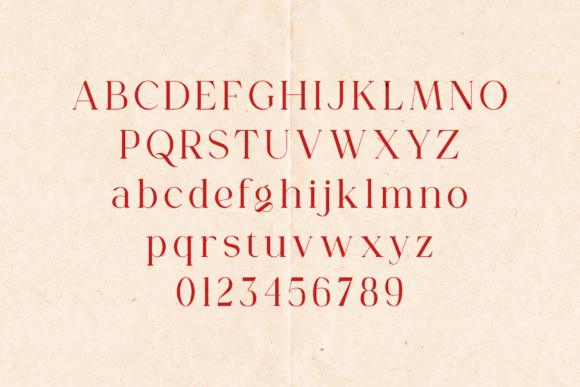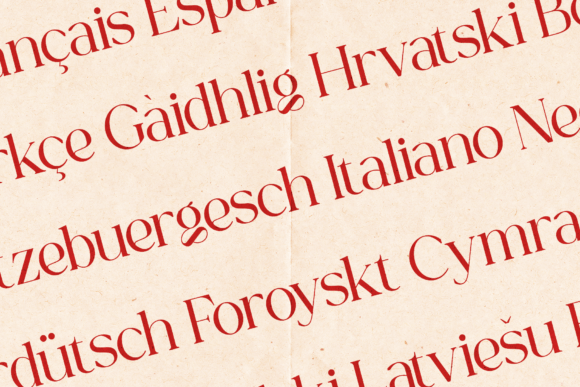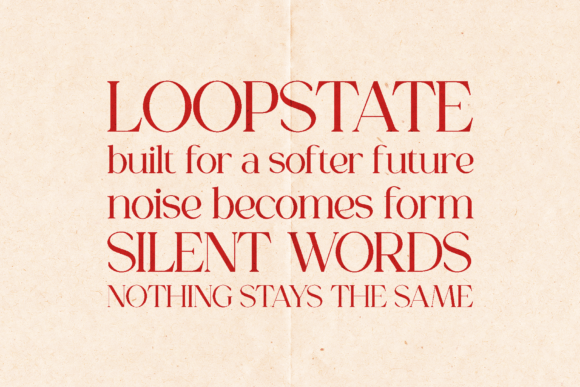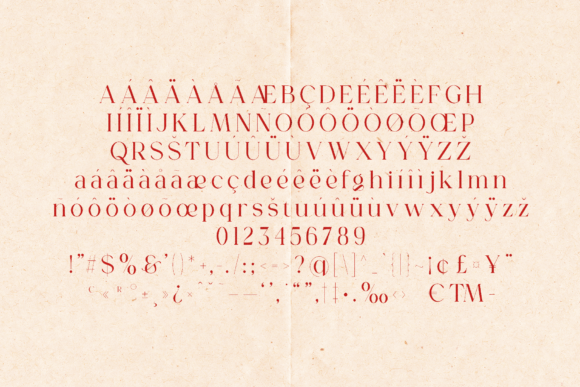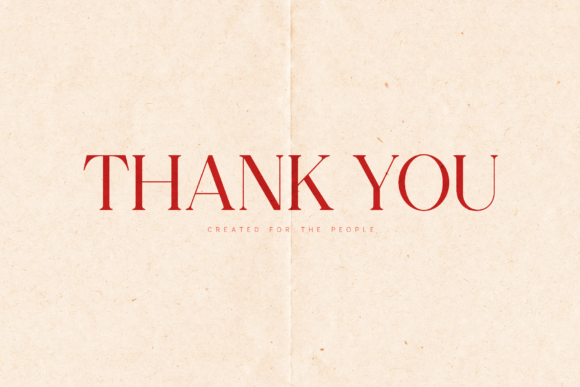
The Perfect Blend of Classic Elegance and Modern Sophistication
There’s something magical about stepping into a vintage bookstore, surrounded by the musty scent of old paper and the soft glow of reading lamps. As you run your fingers over the spines of worn novels, you can almost feel the weight of history in every carefully crafted letterform. This is the kind of typography that inspires us, and the Gorga Font is no exception.
Designed to evoke the timeless elegance of classic book typography, the Gorga Font is a refined vintage serif font that brings a warm, authentic feel to any design project. Whether you’re working on an editorial layout, a magazine cover, or a branding campaign, this versatile font is sure to deliver sophistication without sacrificing creativity. For designers, the Gorga Font is a valuable tool for adding depth and character to any project.
Gorga Font Key Features
- Font Family: Gorga Font is a serif font family designed for use in body text, headings, and titles.
- Character Set: The font includes a comprehensive character set that supports multiple languages, including Latin, Greek, and Cyrillic scripts.
- Size: The font family includes 12 weights, ranging from Light to Extra Bold, providing a wide range of options for different design applications.
- Resolution: The font is designed for use at resolutions up to 1200 dpi, ensuring crisp and clear text output even at high magnifications.
- Unique Characteristics: Gorga Font features a unique combination of elegance and legibility, making it suitable for use in both formal and informal design contexts.
Gorga Font Review
Gorga Font is an elegant and sophisticated font that exudes luxury and refinement. It’s perfect for creating a high-end look and feel in your designs. ✨ Here are some of its strengths:
- Unique and stylish character set that adds a touch of sophistication
- Well-suited for titles, headings, and other prominent text elements
- Works well in both print and digital applications
- Some characters may not be as legible in smaller font sizes
- Lack of variation in font weights, which may limit its versatility
- Not suitable for body text, as it may be difficult to read in large quantities
Overall, I think Gorga Font is a great addition to any designer’s toolkit, but it’s essential to use it judiciously and in the right context. When used correctly, it can add a level of sophistication and elegance to your designs that’s hard to find with other fonts.
Tips for Getting the Most Out of Gorga Font
Use Gorga Font to create eye-catching headlines and titles.
Pair Gorga Font with a clean and simple sans-serif font for body text.
Use Gorga Font for:
Headlines and titles
Branding and logos
Marketing materials and advertisements
Alternatives to Gorga Font
Montserrat is a popular sans-serif font that works well for digital and print media. It is a great choice for headlines and titles, and is particularly suitable for use in modern and minimalist designs.
Compared to Gorga Font, Montserrat has a more geometric and clean design, making it a great choice for designers who want a modern and sleek look. Montserrat is also highly legible, even at small font sizes.
Playfair Display is a luxurious and elegant serif font that is perfect for creating a high-end and sophisticated look. It is a great choice for use in invitations, magazines, and other high-end publications.
Compared to Gorga Font, Playfair Display has a more ornate and decorative design, making it a great choice for designers who want to add a touch of luxury to their designs. However, Playfair Display may not be as legible as Gorga Font, particularly at small font sizes.
Abril Fatface is a bold and elegant serif font that is perfect for creating a striking and eye-catching look. It is a great choice for use in headlines, titles, and other design elements where a bold and attention-grabbing font is needed.
Q: Can I use Gorga Font for digital displays?
Yes, Gorga Font is optimized for digital displays. It’s designed to be clear and readable on various screen resolutions and devices. However, for optimal results, it’s recommended to use the font at a minimum size of 24 points on screens with a resolution of 1080p or higher.